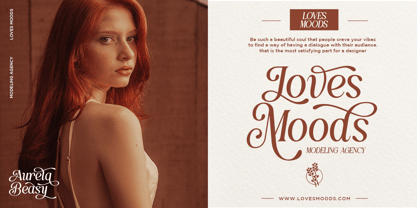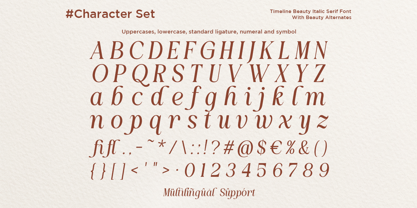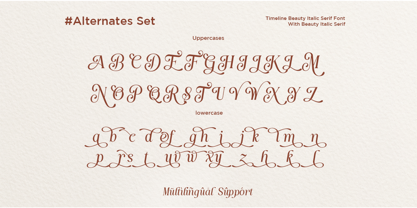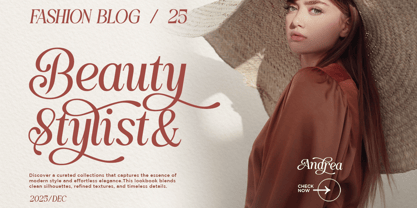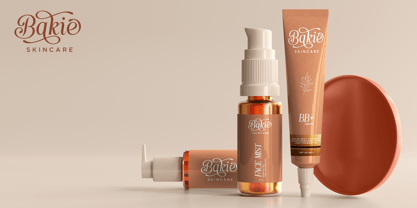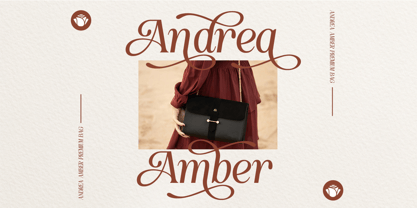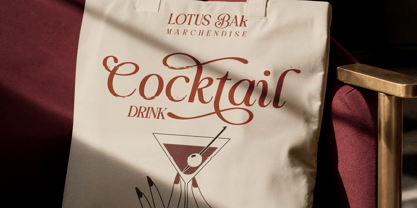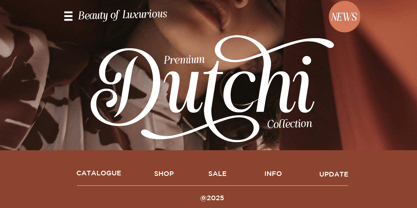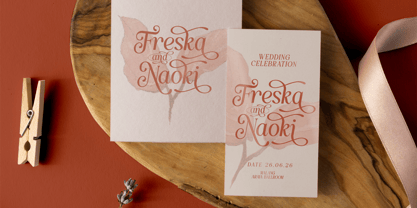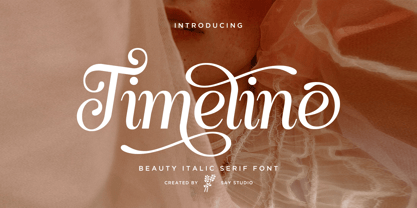
Timeline
by Say Studio
The Timeline Font Family was designed by Mussyayin and published by Say Studio. Timeline contains 1 styles. More about this family
Timeline is a graceful beauty italic serif font crafted to bring timeless elegance and refined sophistication to every design. Featuring flowing swashes, delicate curves, and stylish italic letterforms, this typeface creates a luxurious impression that is perfect for premium branding and high-end visual identities.
Designed for designers, creatives, and brands that value elegance, Timeline is ideal for logos, wedding invitations, cosmetic packaging, fashion editorials, magazines, beauty campaigns, social media, photography branding, boutique products, and luxury marketing materials. Its decorative swashes add a distinctive handcrafted touch while maintaining excellent readability.
Whether you're creating feminine branding, premium packaging, or sophisticated typography, Timeline delivers an effortlessly luxurious aesthetic that elevates every project with charm, personality, and timeless style.
• Basic italic serif
• Stylistic Alternates
• Uppercase and Lowercase
• Number, Symbol, and Punctuation
• Multi Language Support